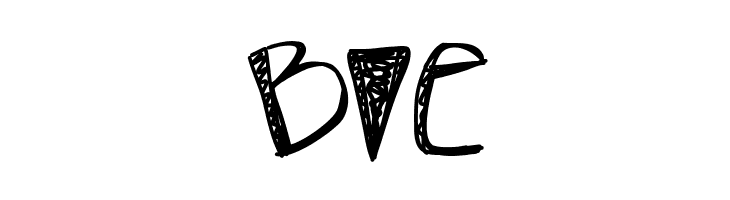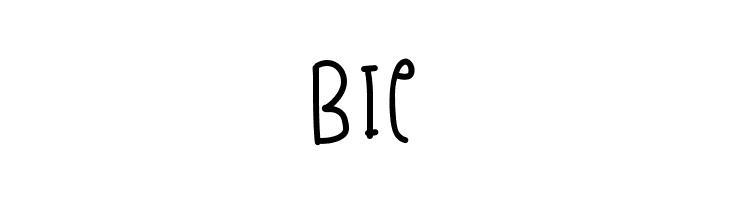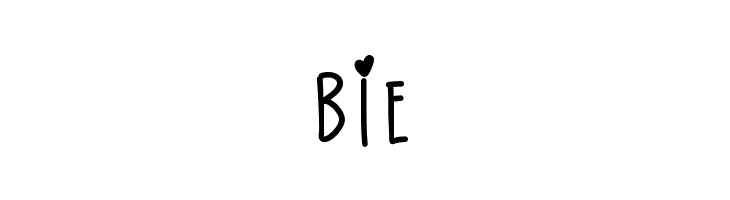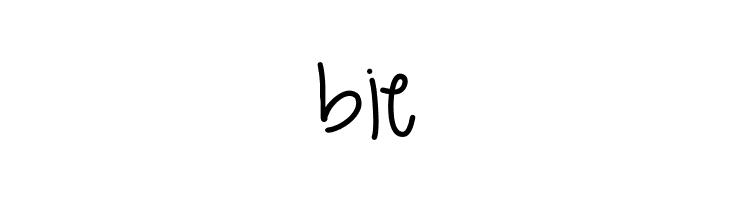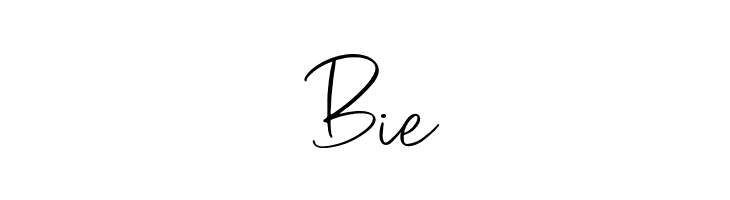
A playful, hand-drawn font with tall, narrow characters and a whimsical style.
A graceful, cursive script font.
A modern, cursive script font with fluid, connected letters.
A bold, distressed font with a vintage, grunge aesthetic.
A playful, hand-drawn font with decorative elements and a whimsical style.
A vibrant, brush-style font with a dynamic and artistic flair.
A playful handwritten font with whimsical, rounded strokes and decorative elements.
A playful handwritten font with flowing, interconnected strokes and varied line thickness.
A playful, whimsical handwritten font with flowing, interconnected letterforms.